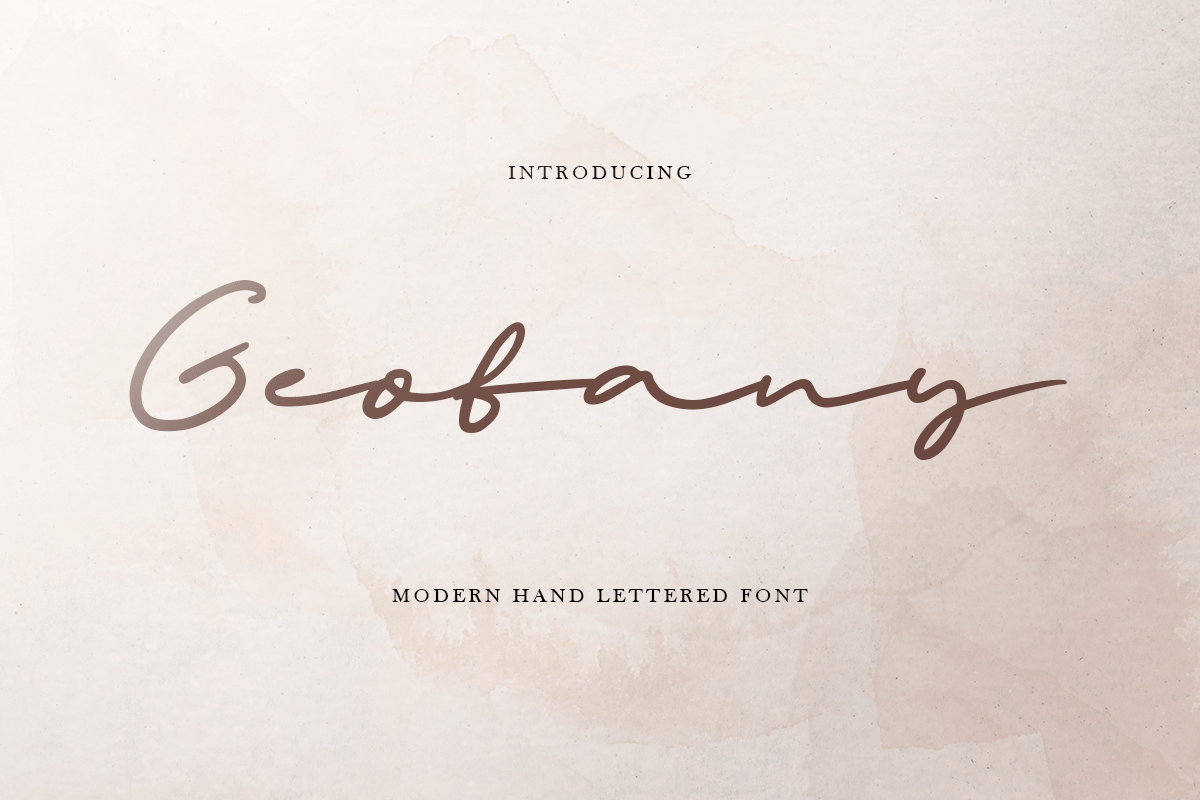
Geofany
-Modern Hand Lettered Beauty Script Font
Geofany - a Modern Hand Lettered Beauty Script Font. Inspired from beauty and feminine style very good for signature, stationery, logo, typography quotes, magazine or book cover, website needs.